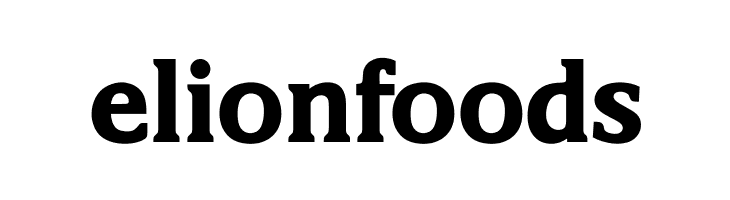
A bold, geometric font with a modern and structured design.
A bold, modern font with a strong, dynamic presence.
Intricate and ornate decorative ornaments with floral and geometric patterns.
A bold, melting-effect font with a dynamic and edgy style.
An elegant font with a blend of traditional and modern elements, featuring calligraphic numerals.
A traditional and elegant script with flowing curves and intricate details.
A fluid and artistic script font with a handwritten quality.
A flowing, elegant script font with artistic curves.
A futuristic, geometric font with clean lines and a modern aesthetic.
A bold, geometric font with an art deco influence, perfect for striking visual designs.
A bold, modern font with a vintage touch, perfect for impactful headlines.
A bold, angular font with a Gothic influence, perfect for decorative uses.
A diverse set of arrow symbols with varying styles and designs.
A bold, futuristic font with geometric, angular characters.
A bold, playful font with rounded strokes and a vintage-modern appeal.
A bold, serif font with strong strokes and a classic yet modern appeal.
A bold, futuristic font with geometric shapes and a modern aesthetic.
A bold, impactful font with strong, thick strokes and a slight curvature for added softness.
A bold, impactful font with thick, uniform strokes ideal for headlines.
A modern, geometric font with rounded edges and uniform thickness.
A bold, textured font with a distressed, chain-link fence appearance.